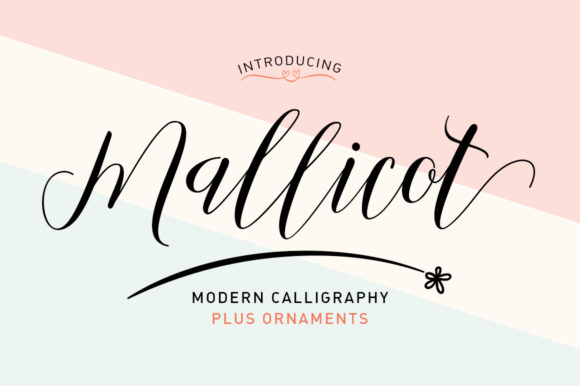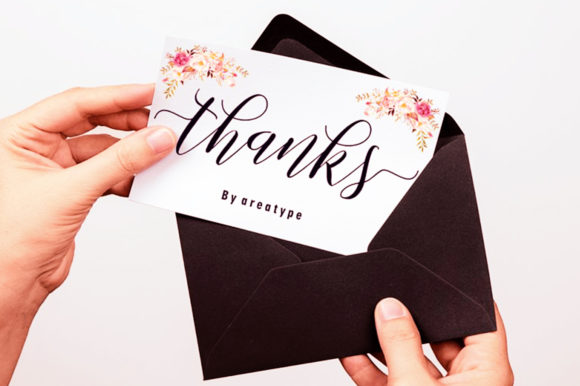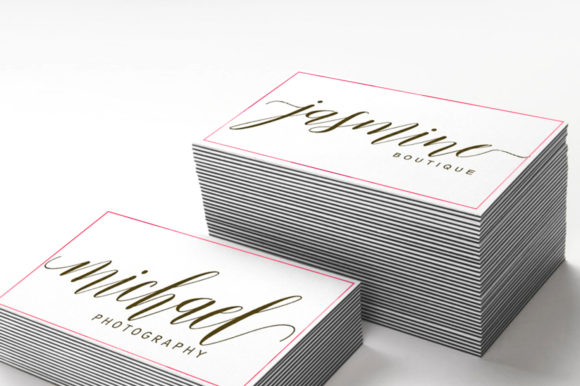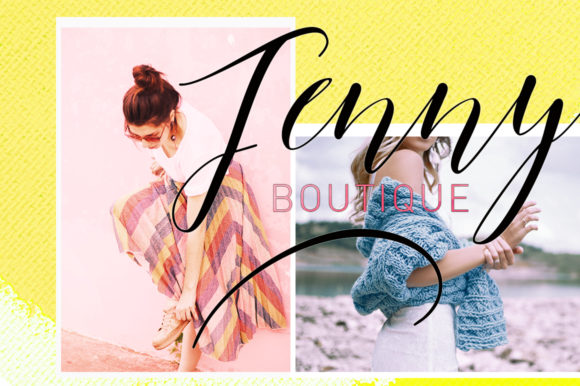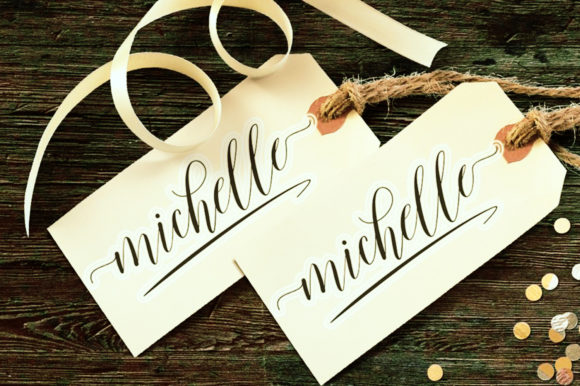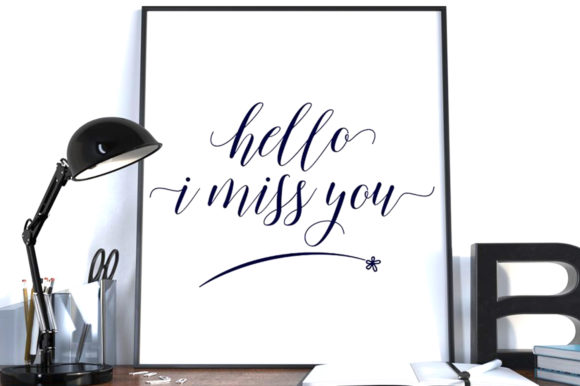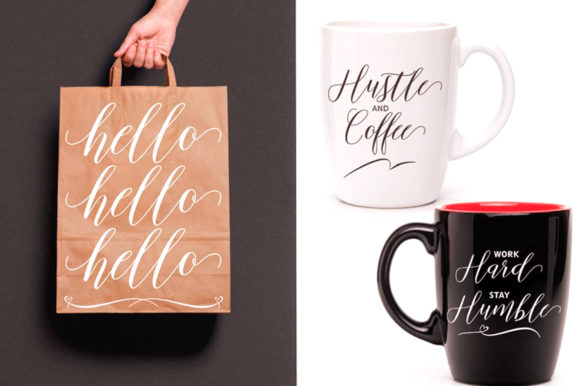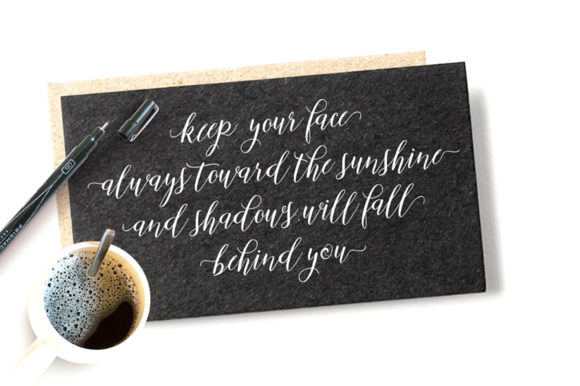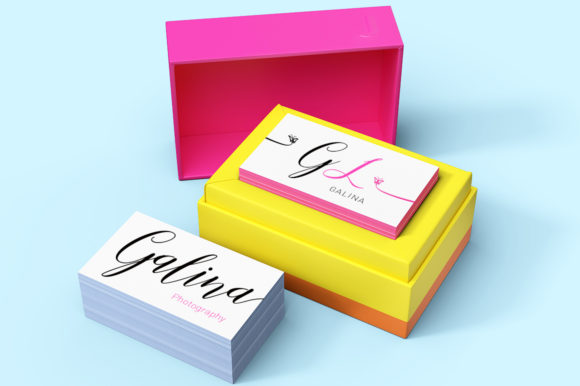
HomeScript FontsMallicot Font Script Fonts Mallicot Font FacebookXPinterestWhatsApp Mallicot Font Poster 2 Mallicot Font Poster 3 Mallicot Font Poster 4 Mallicot Font Poster 5 Mallicot Font Poster 6 Mallicot Font Poster 7 Mallicot Font Poster 8 Mallicot Font Poster 9 Mallicot Font Poster 10 About Mallicot Font Mallicot is a lovely script font with a modern charm. Get inspired by its playful style! DOWNLOAD ON CREATIVE FABRICAThis font is sold and delivered by Creative Fabrica. Font Canyon may earn a commission if you buy through this link. People also explored Vessagio Font Uniqloves Font Farmhouse Font Swiszilan Font Winter Bright Font Grigory Font Jolly Purples Font Dentany Font Equinox Font 301 0 TagsMallicot Font Previous articleBaligle FontNext articleBaby Lovely Font LEAVE A REPLY Cancel reply Comment: Please enter your comment! Name:* Please enter your name here Email:* You have entered an incorrect email address! Please enter your email address here Website: Save my name, email, and website in this browser for the next time I comment. Personal Use Free Heartburn Personal Use Free Read more about this font Helsinki Personal Use Free Read more about this font Klotee Personal Use Free Read more about this font Hysteria Santa Personal Use Free Read more about this font BLOG Free Fonts Risk: Why Free Fonts Can Be Dangerous for Designers Free Fonts Risk: Why Free Fonts Can Be Dangerous for Designers Using free fonts is a common practice in web and graphic design. However, the... To increase your work productivity, choose the most readable fonts. The 10 Best Handwriting Fonts to Add Personality to Your Designs Modern Sans-Serif Fonts That Brands Love in 2025